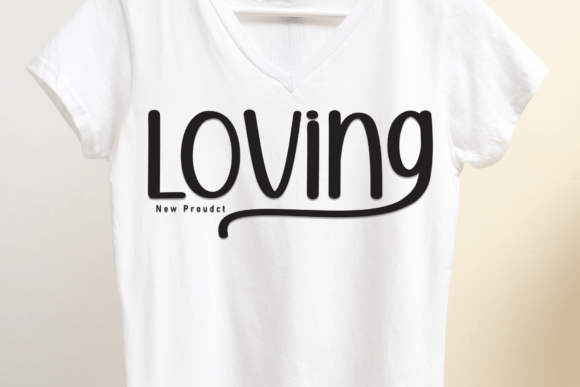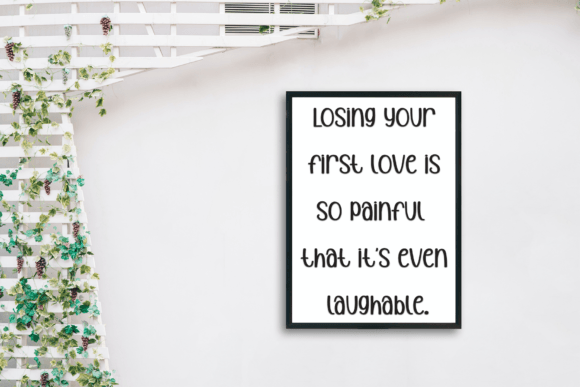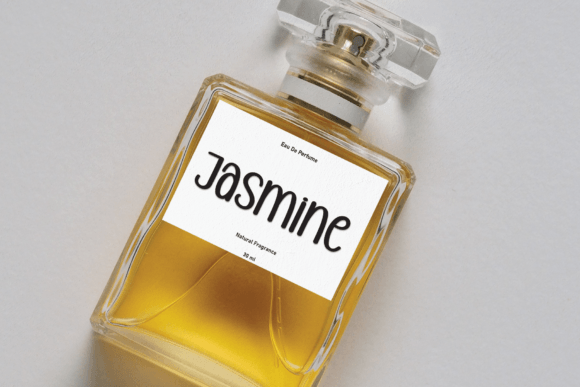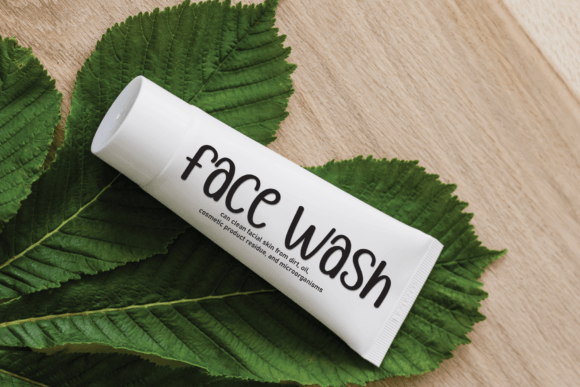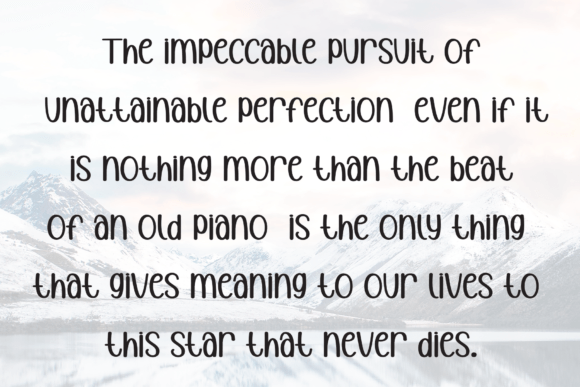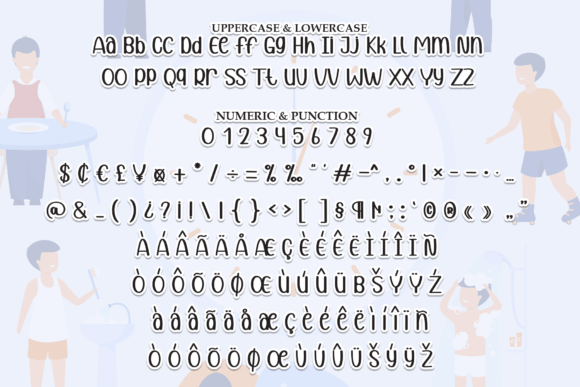
Bring a Touch of Whimsy to Your Daily Creations
Do you ever find yourself brainstorming ideas for a new project, only to be stuck on the perfect font to bring it all together? We’ve all been there. For designers, the right font can make or break the aesthetic of a piece, and it’s often the first thing that catches our eye.
That’s where Daily Font comes in – a friendly and lovely font designed specifically for everyday use. Whether you’re working on a diary planner, journal, or project for a special occasion, Daily Font is the perfect addition to your font library. Its versatility makes it ideal for a wide range of applications, from back to school and wedding invitations to posters and social media posts.
By incorporating Daily Font into your designs, you’ll be able to add a personal touch that sets your projects apart. With its playful and approachable style, it’s sure to bring a smile to the faces of your audience.
Daily Font Key Features
- Unique Characteristics: Daily Font features a unique blend of modern and classic design elements, with intricate details and subtle nuances that set it apart from other fonts.
- Legibility: The font is carefully crafted for optimal legibility, ensuring that text remains clear and easy to read even at small font sizes.
Review of Daily Font
As a designer, I’m always on the lookout for fonts that make a statement. Daily Font is a modern sans-serif font that I’ve been experimenting with, and here’s my honest review.
- Legibility: Daily Font is incredibly easy to read, even at small font sizes. The clean lines and simple shapes make it perfect for body text.
- Scalability: I’ve used Daily Font for everything from small UI elements to large headings, and it scales beautifully.
- Consistency: The font is well-designed and consistent throughout, with no awkward kerning or spacing issues.
- Lack of personality: While Daily Font is functional, it’s not particularly memorable or distinctive. It’s a safe choice, but it doesn’t stand out in a crowded font market.
- No bold or italic weights: While the regular weight is solid, the lack of bold or italic weights limits its versatility.
- Not suitable for titles: Daily Font is best used for body text, as it can come across as a bit bland for titles or headlines.
Daily Font is a solid, reliable choice for designers who want a clean and legible font for body text. While it may not be the most exciting or memorable font, it gets the job done. I’d recommend it for projects where readability is a top priority.
“Daily Font” is ideal for creating custom labels, signs, and titles. To get the most out of it, use it for headings and titles, and pair it with other fonts for body text. You can also use it for branding and logo design, as it offers a unique and recognizable style.